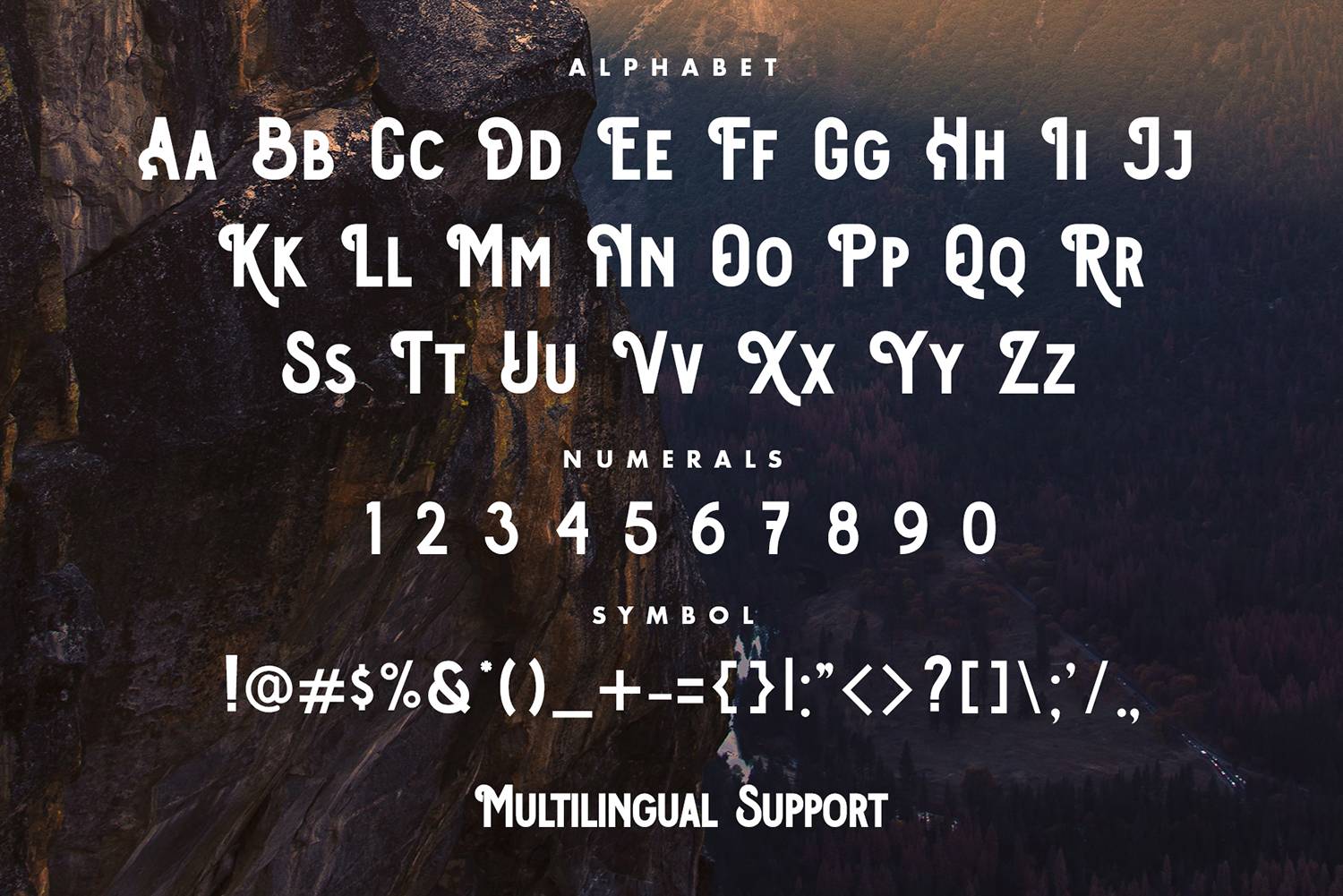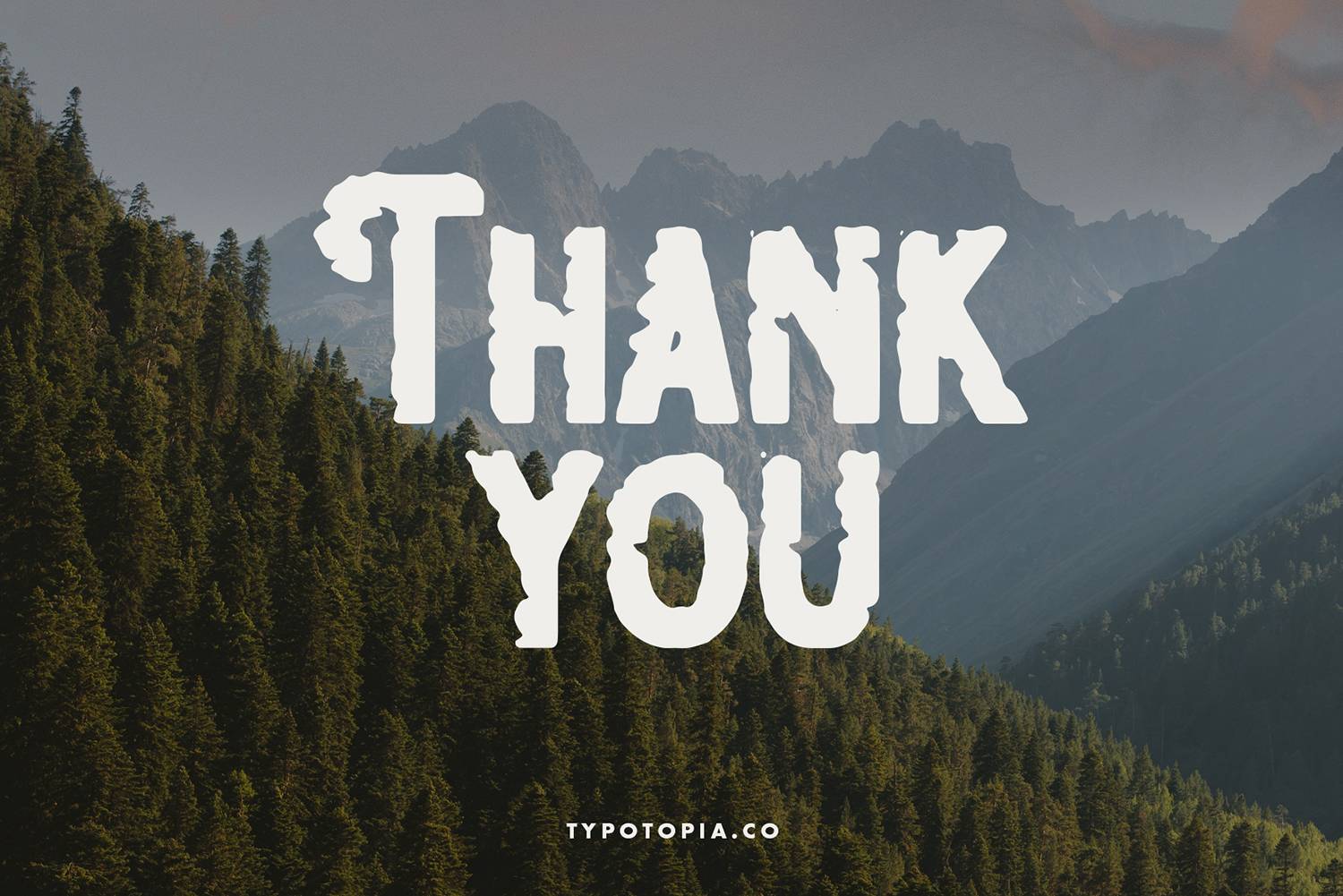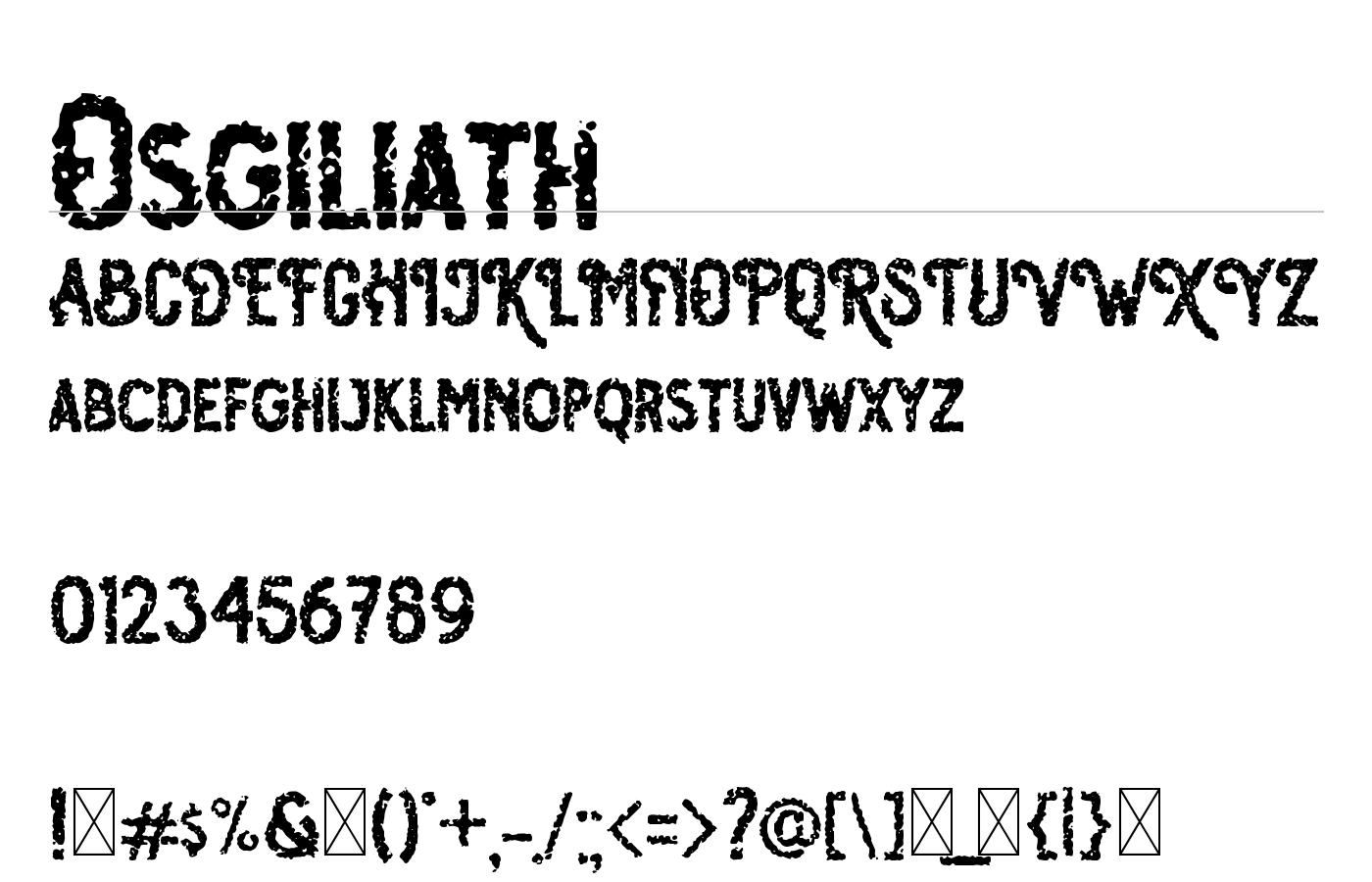
Osgiliath is a distressed, bold sans serif font with a textured, worn appearance that gives it a gritty, vintage feel. Its uppercase letters are slightly condensed with rough edges, making it perfect for designs that need an aged or rustic touch. This font works well for posters, logos, or creative projects that want to convey ruggedness or an urban, gritty atmosphere.
Osgiliath Font
About Osgiliath Font